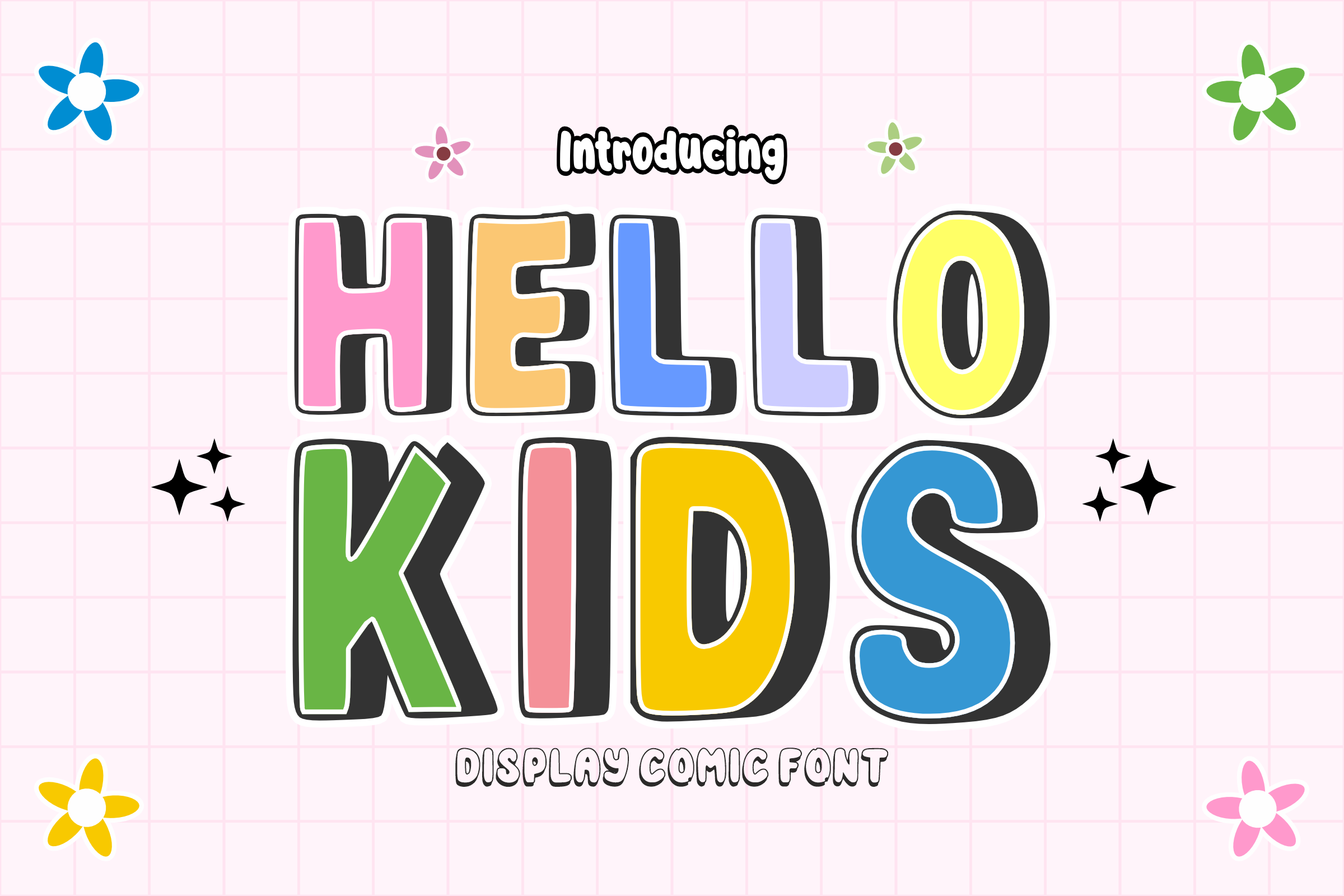
Hello Kids - Display Font
🎨 Hello Kids - Playful & Bouncy Display Font ✨ Say hello to your new favorite font! Hello Kids is a vibrant, bold display font designed to bring instant energy and fun to any project. With its chunky, rounded shapes and a sleek "sticker-style" outline, this font perfectly mimics a playful cutout aesthetic that children and parents alike will love.
Whether you're designing for a classroom, a toy brand, or a birthday party, Hello Kids ensures your message is both legible and incredibly joyful!
🌟 Product Highlights: 🎈 Bold Uppercase: High-impact letters that pop on any background. 🔢 Numbers 0-9: Perfectly matched numerals for all your counting needs. 💫 Simple Symbols: Essential punctuation to complete your creative vision. ✂️ Smooth Edges: Optimized for clean cutting (Cricut/Silhouette) and sticker printing.